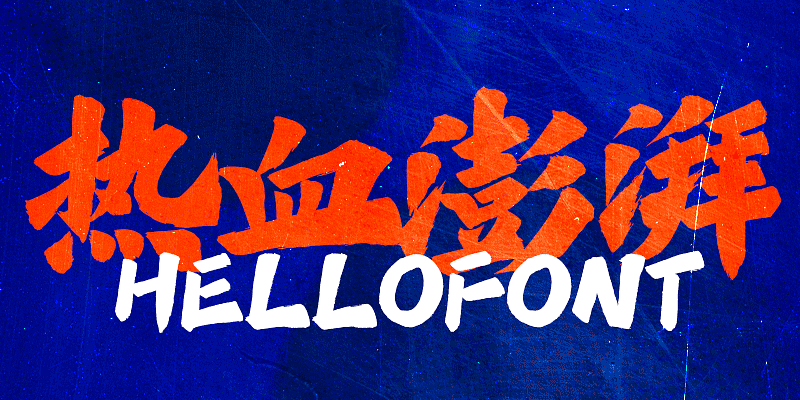
HelloFont ID Long Fei Zheng Kai Font Free Download is a bold and expressive typeface with distinct calligraphic features, making it ideal for projects that require a strong, artistic presence. Its elegant strokes and flowing curves give it a unique look that works well for branding, invitations, logos, and other creative projects that need a touch of sophistication and personality.
HelloFont ID Long Fei Zheng Kai Font offers versatility for both display settings and smaller text, ensuring readability while maintaining its artistic flair. It seamlessly integrates with design tools like Adobe Illustrator, Photoshop, Figma, and Canva, making it suitable for both digital and print media.